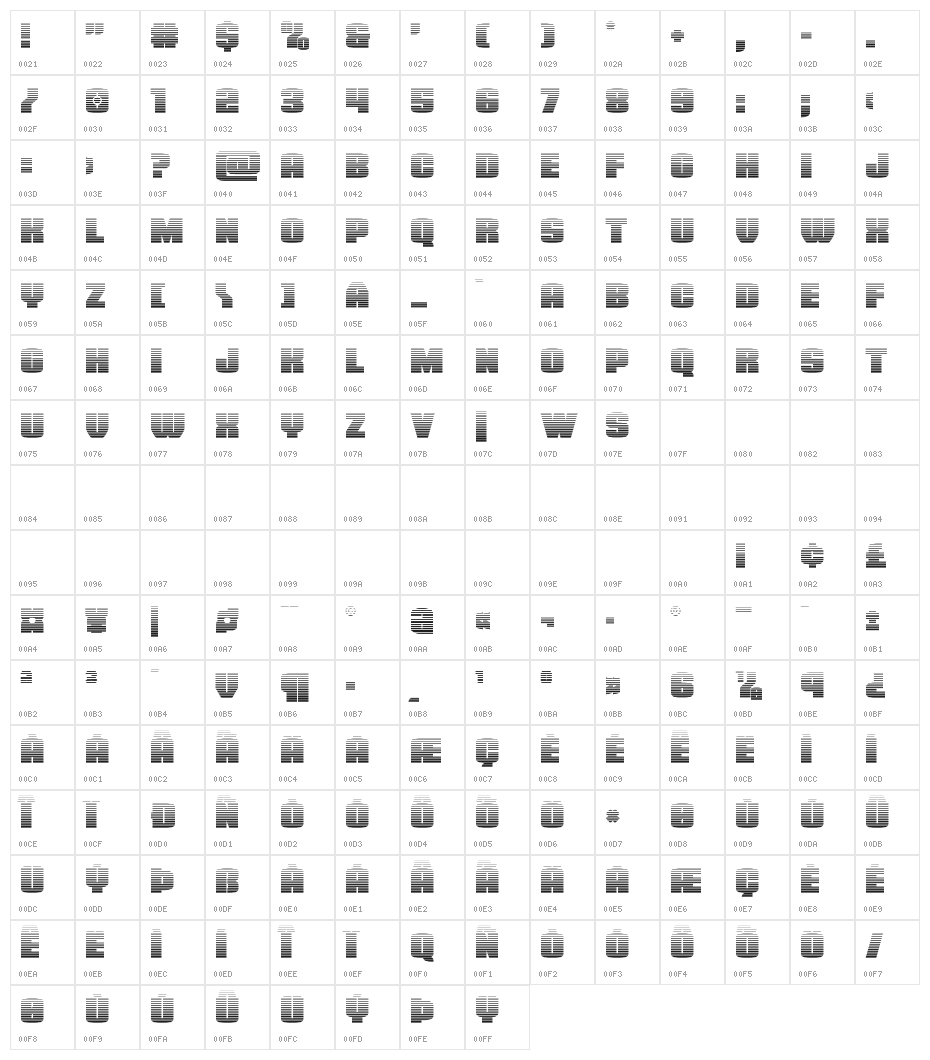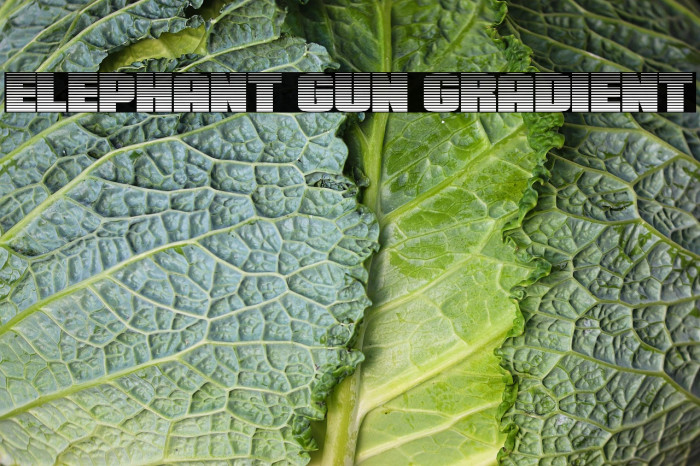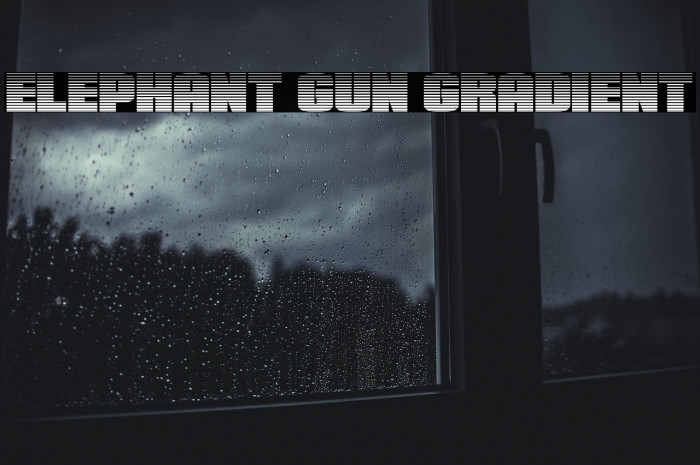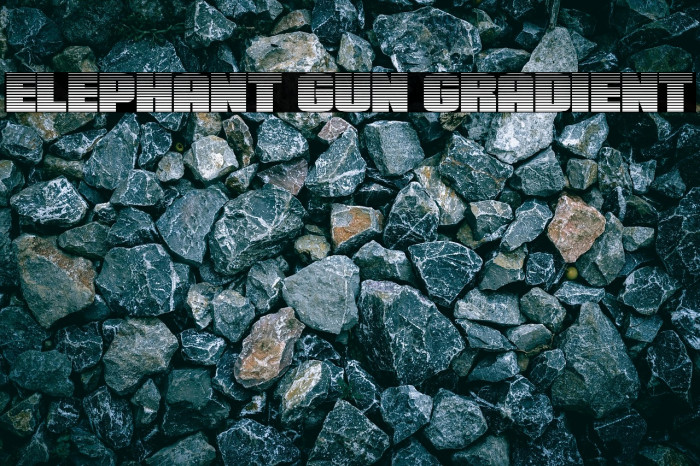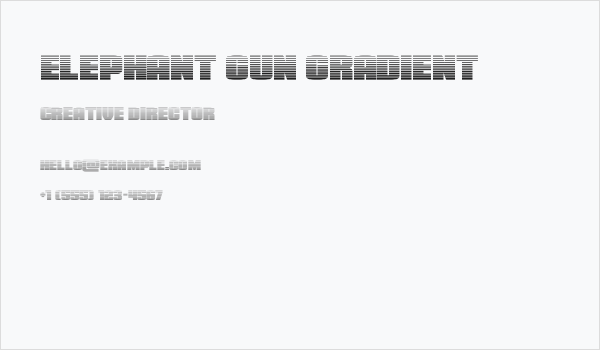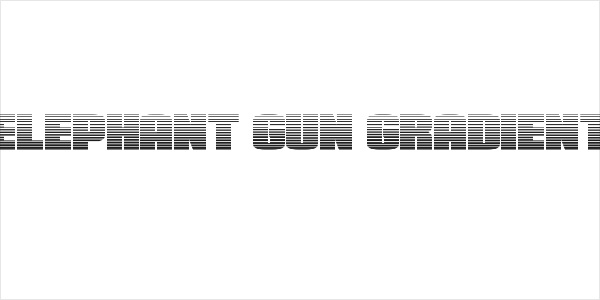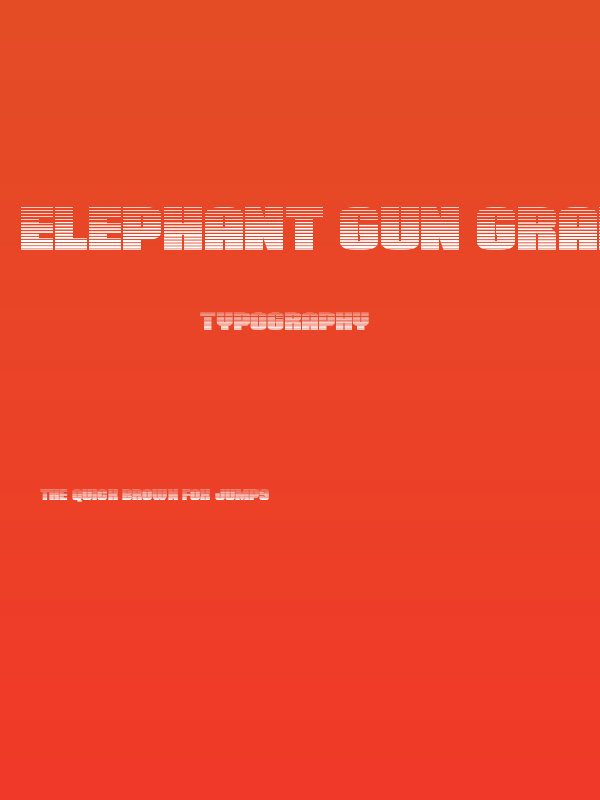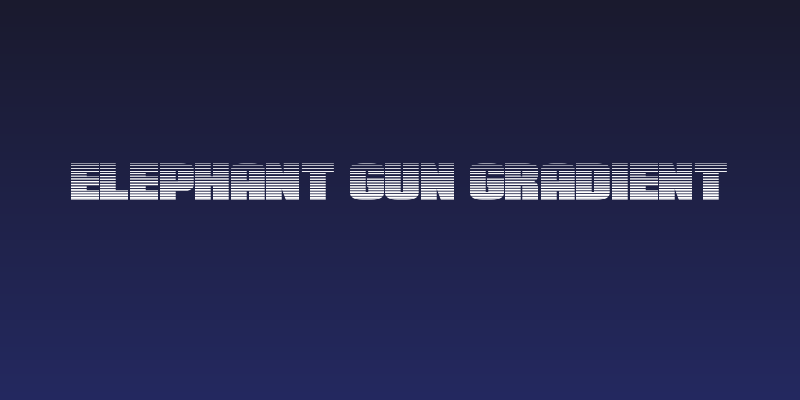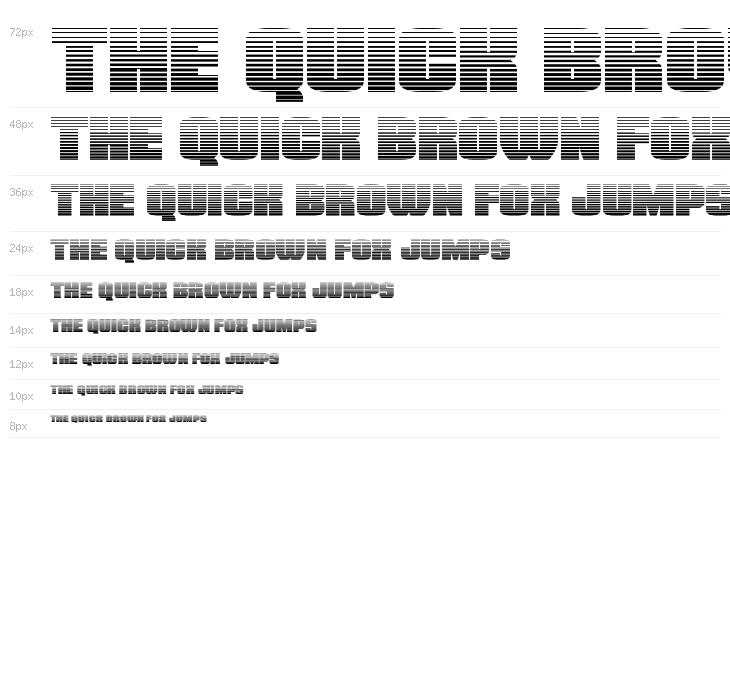
Elephant Gun Gradient Font
Elephant Gun Gradient Description
This font features a bold, decorative style with a unique gradient effect created by horizontal lines across each character. The uppercase and lowercase letters, as well as numbers and special characters, maintain a consistent design, emphasizing a modern and eye-catching appearance. The thick strokes and striped pattern give it a strong visual impact, making it ideal for attention-grabbing designs. The font's structure is solid and geometric, with a slight futuristic feel due to the gradient effect. It is well-suited for projects that require a bold statement or a modern, edgy look.